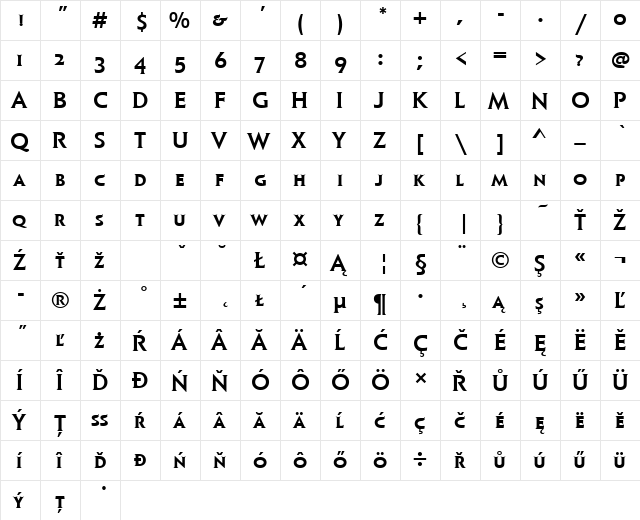
ElanSCItcTEEMed Regular
Design Context for ElanSCItcTEEMed Typeface
ElanSCItcTEEMed takes a measured approach to typography — its balanced proportions and neutral character make it a reliable workhorse for both digital and print work.